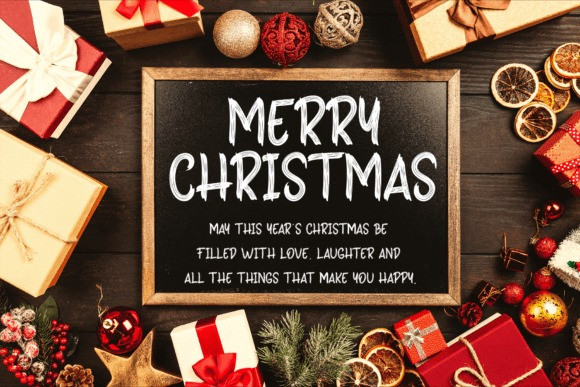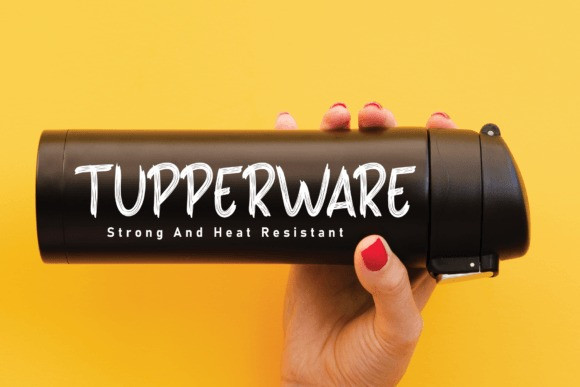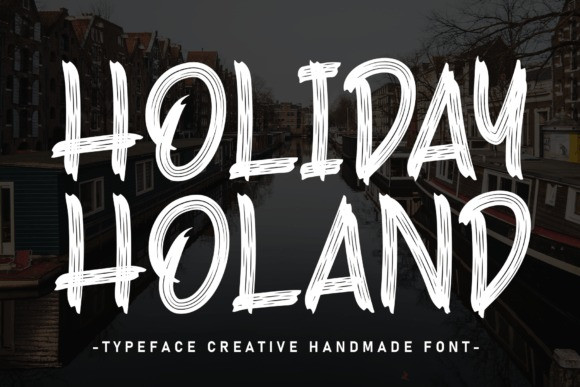
Holiday Holand Font
Holiday Holand Font is a sweet and friendly handwritten display font. Cute and fun, this font is ideal for writing wedding invitations, cards, or any other design that might need a fun touch!